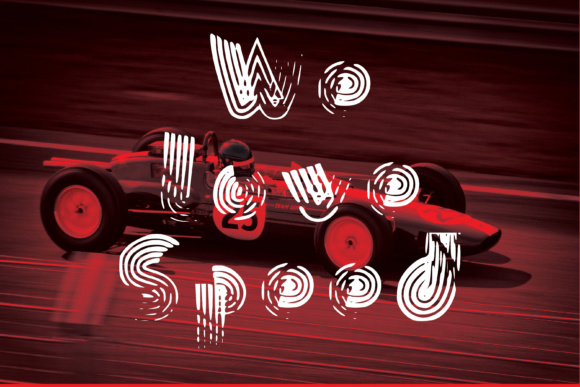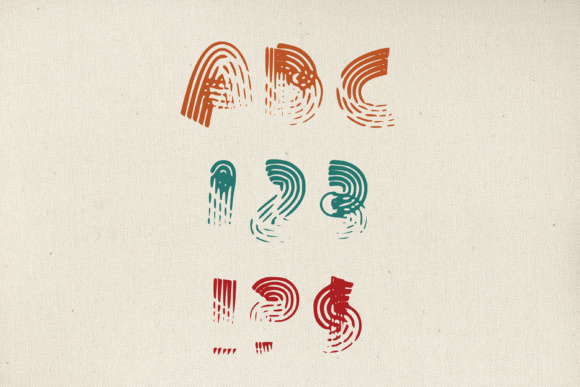
Speeding into the World of Typography
Have you ever felt that rush of adrenaline as you hit the open road, the wind in your hair, and the speedometer climbing? For designers, that same feeling can be captured in a font. Introducing Bad Speed Way Font, a typeface that embodies the thrill of speed and the raw energy of adrenaline. Born out of a high-octane passion for typography, this font is not just a design element, but an experience.
As a designer, you know that the right font can make all the difference in conveying a message or setting a mood. Bad Speed Way Font is a valuable addition to any design toolkit, offering a unique blend of modernity and edginess. Its dynamic curves and bold lines are sure to grab attention and leave a lasting impression. Whether you’re designing for a high-speed sports brand or a cutting-edge tech company, Bad Speed Way Font is the perfect companion for your creative journey.
Bad Speed Way Font Key Features
- Unique Characteristics: The font features a distressed, retro aesthetic with a mix of bold and cursive elements, giving it a distinctive look.
Designer Review: Bad Speed Way Font
Overall, I’d say that Bad Speed Way Font is an interesting choice for designers looking to add some edge to their projects. ✨
The font’s bold, chunky aesthetic works well for titles and headings, making it perfect for attention-grabbing designs. ✨ The rounded edges and slightly distressed look give it a unique, hand-drawn feel that’s hard to replicate with other fonts. ✨ Additionally, the font’s weight and size options provide ample flexibility for designers to customize their projects.
However, I do have some concerns about the font’s limitations. ⚠️
- Lack of legibility: At smaller sizes, the font’s bold strokes can become difficult to read, making it unsuitable for body text.
- Limited language support: Bad Speed Way Font may not support all languages, which could be a problem for designers working on multilingual projects.
- Not suitable for fine typography: The font’s chunky design makes it difficult to achieve fine typography, which may be a drawback for designers who prefer more precise control over their designs.
Overall, Bad Speed Way Font is a great choice for designers who want to add a bold, edgy touch to their projects, but it may not be the best fit for every design need.
Tips for Getting the Most Out of “Bad Speed Way Font”
Here are a few tips for getting the most out of “Bad Speed Way Font”:
- Use it to create a retro or vintage vibe in your designs.
- Pair it with bold or italic fonts for a unique look.
“Bad Speed Way Font” is commonly used in:
- Designing retro-themed graphics and logos.
- Creating vintage